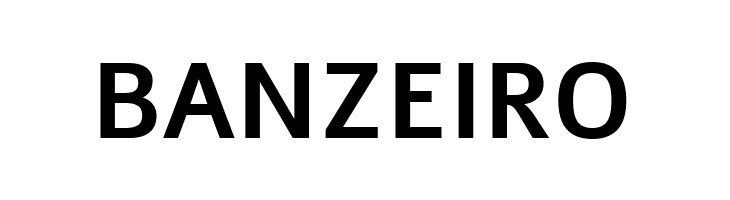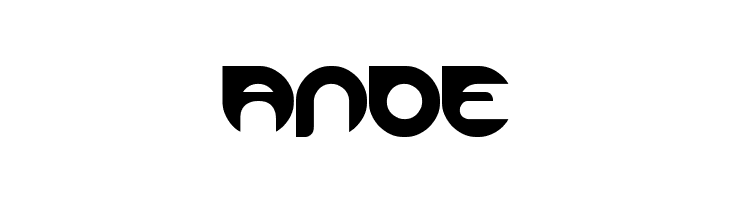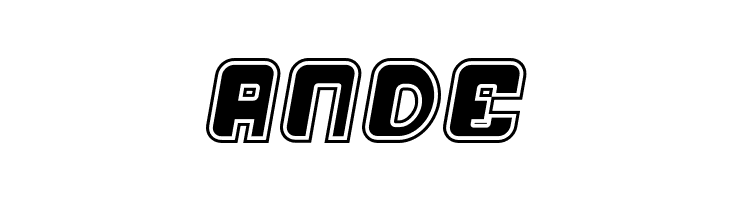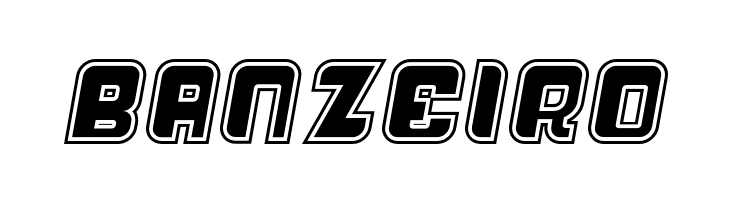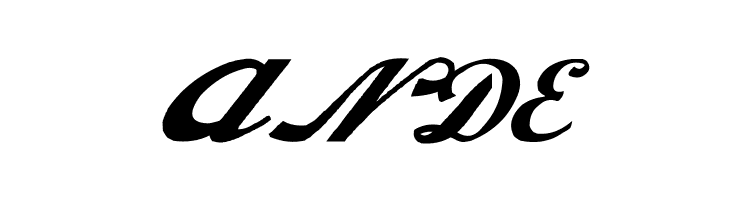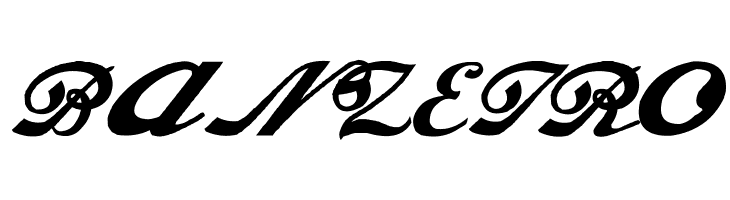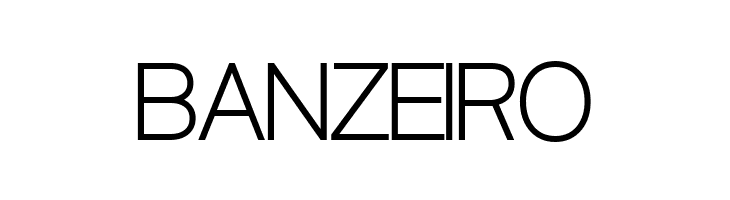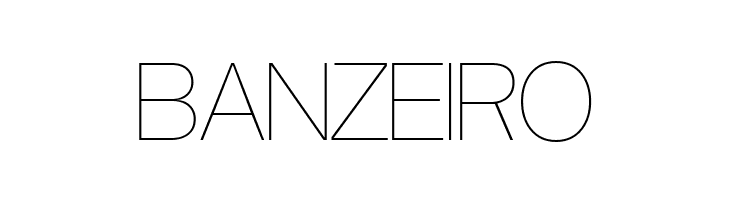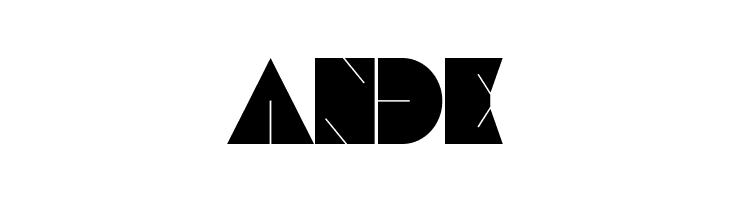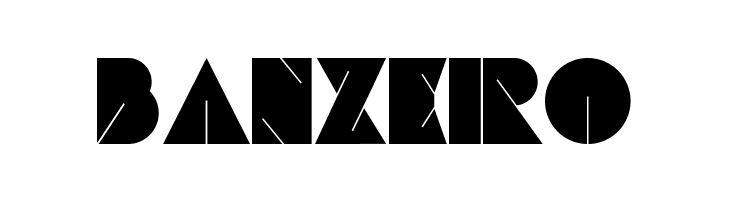
• Alef Bold
A bold, modern sans-serif font with excellent readability and balanced proportions.
• Alef Regular
A clean, modern sans-serif typeface with balanced spacing and consistent stroke width.
• Alégre Sans
A bold, modern sans-serif font with strong vertical lines and uniform strokes.
• ALEXANDRA
A bold, geometric font with a futuristic and modern design.
• ALEXANDRA
A bold, futuristic font with geometric shapes and sharp angles.
• ALEXANDRA Bold
• ALEXANDRA-HOLLOW
A hollow, geometric font with a futuristic and modern aesthetic.
• ALEXANDRA-HOLLOW-INVERSE
A futuristic, hollow, and geometric font with a consistent stroke width.
• ALEXANDRA-INVERSE
A bold, futuristic font with geometric shapes and sharp angles.
• Alexandre
A bold, decorative font with intricate patterns and elegant script elements.
• alexey
A futuristic, geometric font with bold, angular letterforms.
• Alfaowner Script Bold Italic
• ALGORITHM
A bold, geometric font with a futuristic and modern design.
• Ali
• Alice Oranges
A playful, handwritten font with uneven strokes and a casual style.
• alien language
• Alien Mutations Begin
A decorative, alien-themed font with jagged, organic forms and a mysterious aesthetic.
• aliendco
A whimsical, alien-themed decorative font with unique character designs.
• aliendco
A playful and decorative font with alien-like character designs.
• AlienDot
A playful, futuristic font with bold strokes and dot connections.
• AlienFur
A bold, spiky font with a playful and textured appearance.